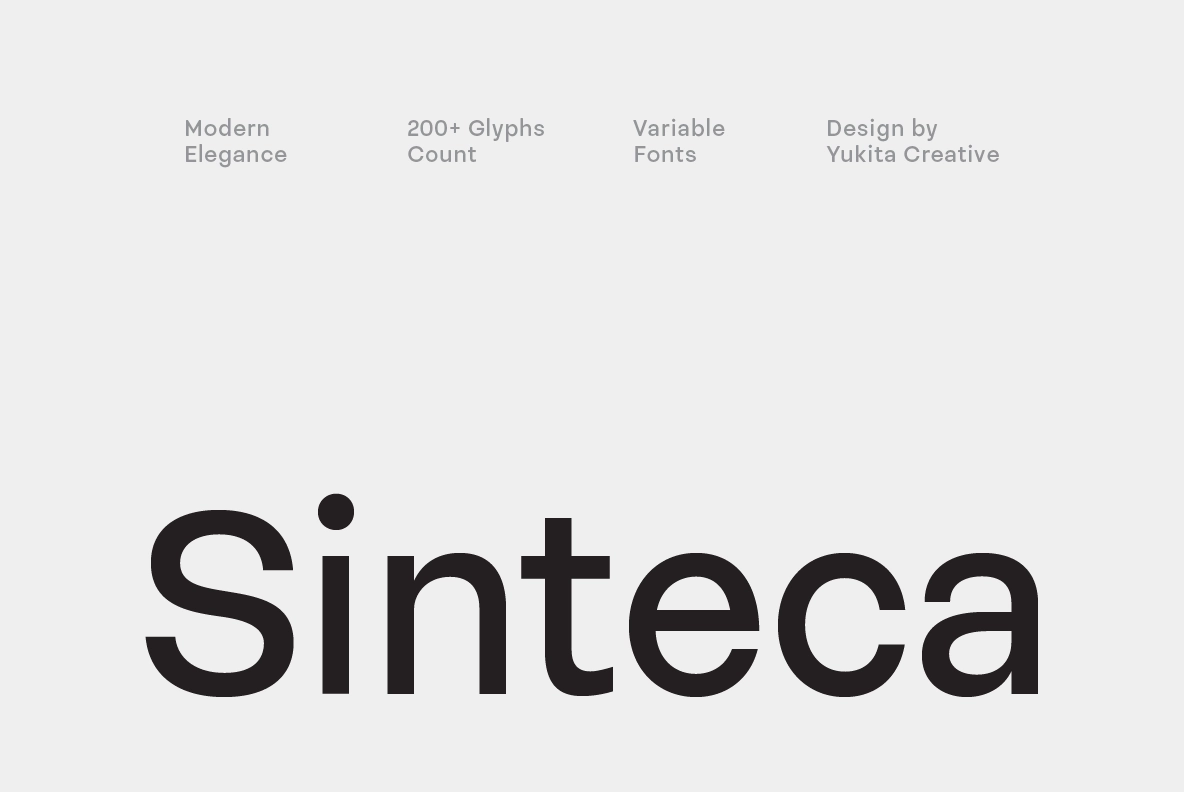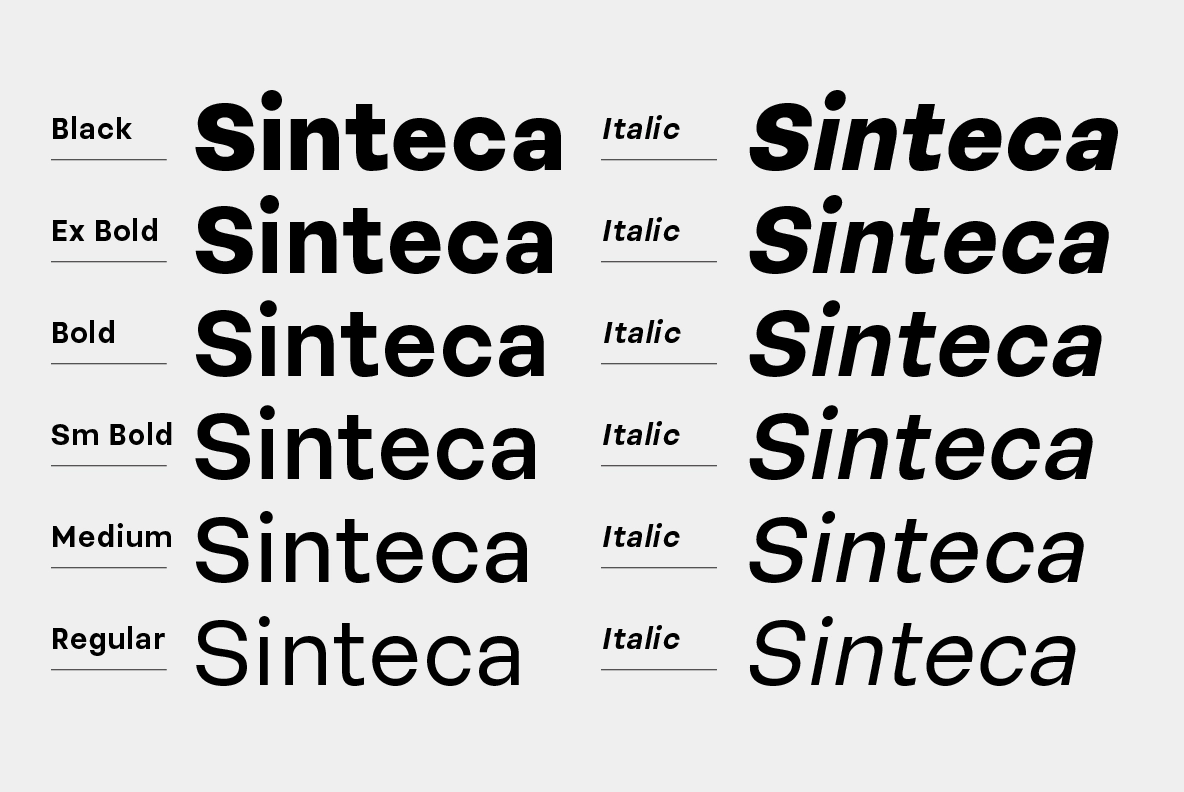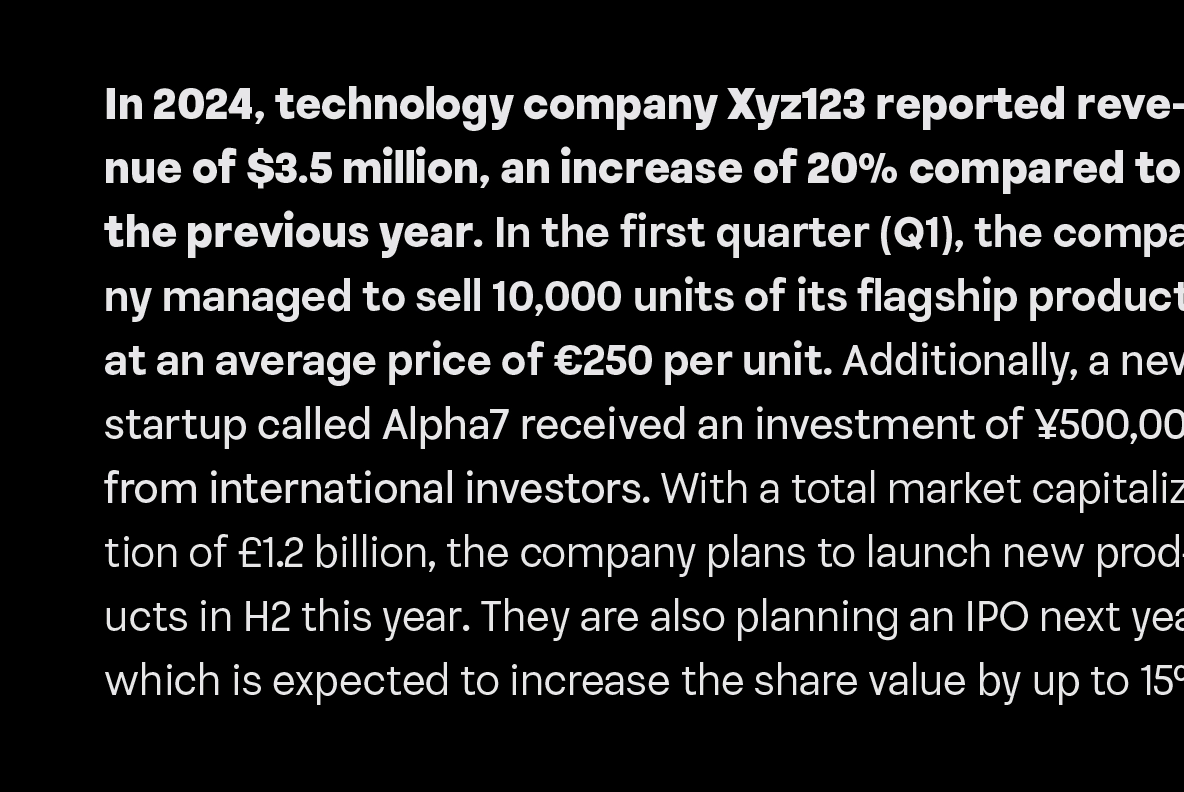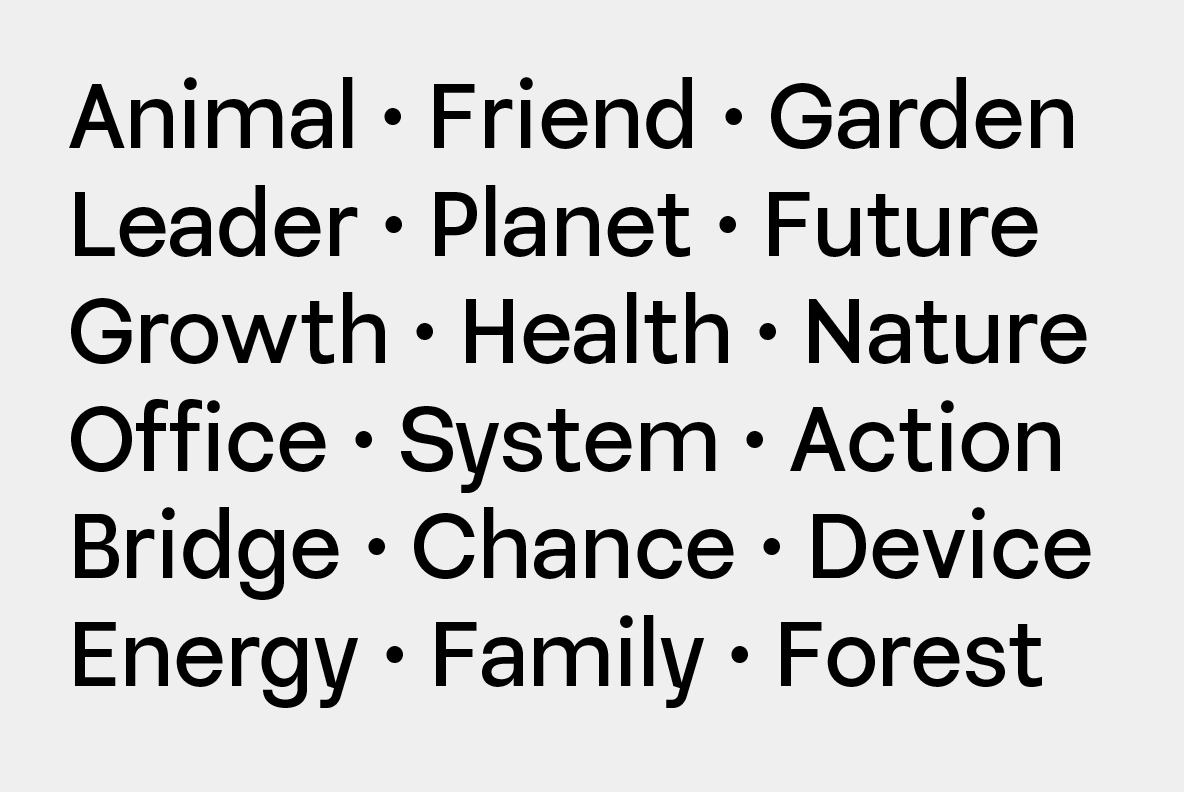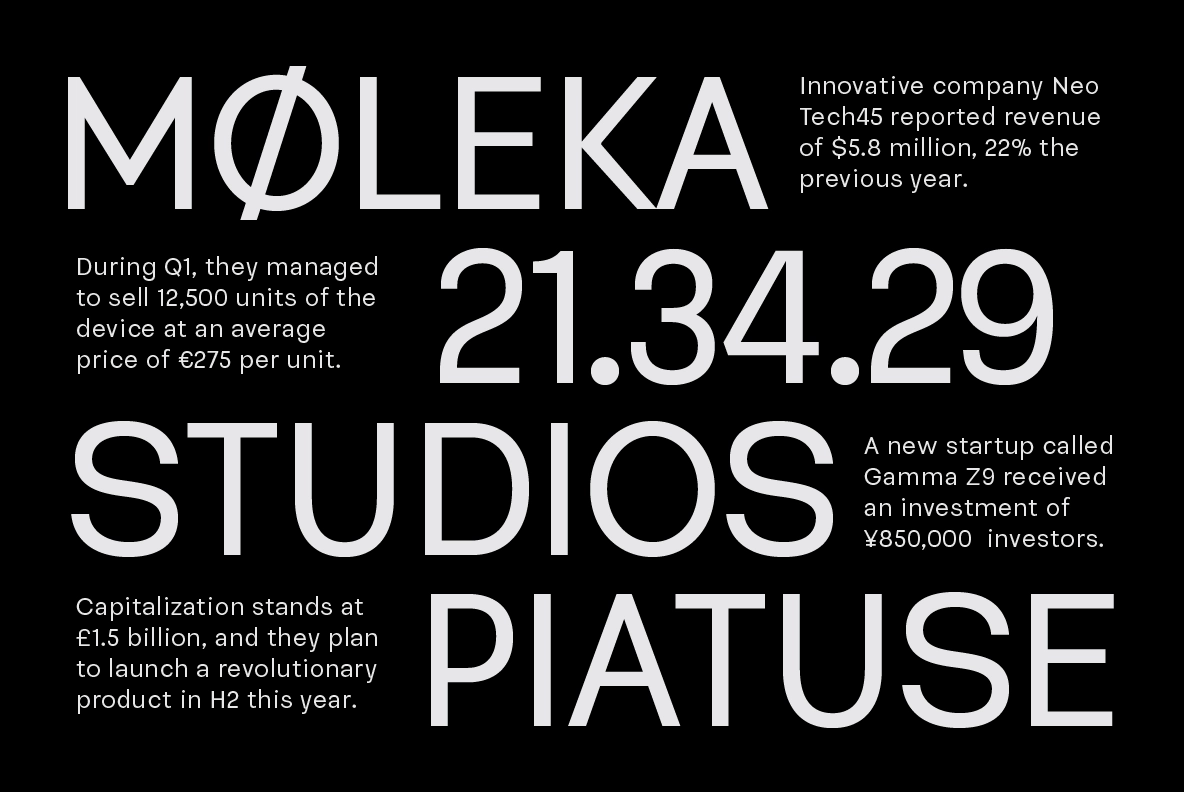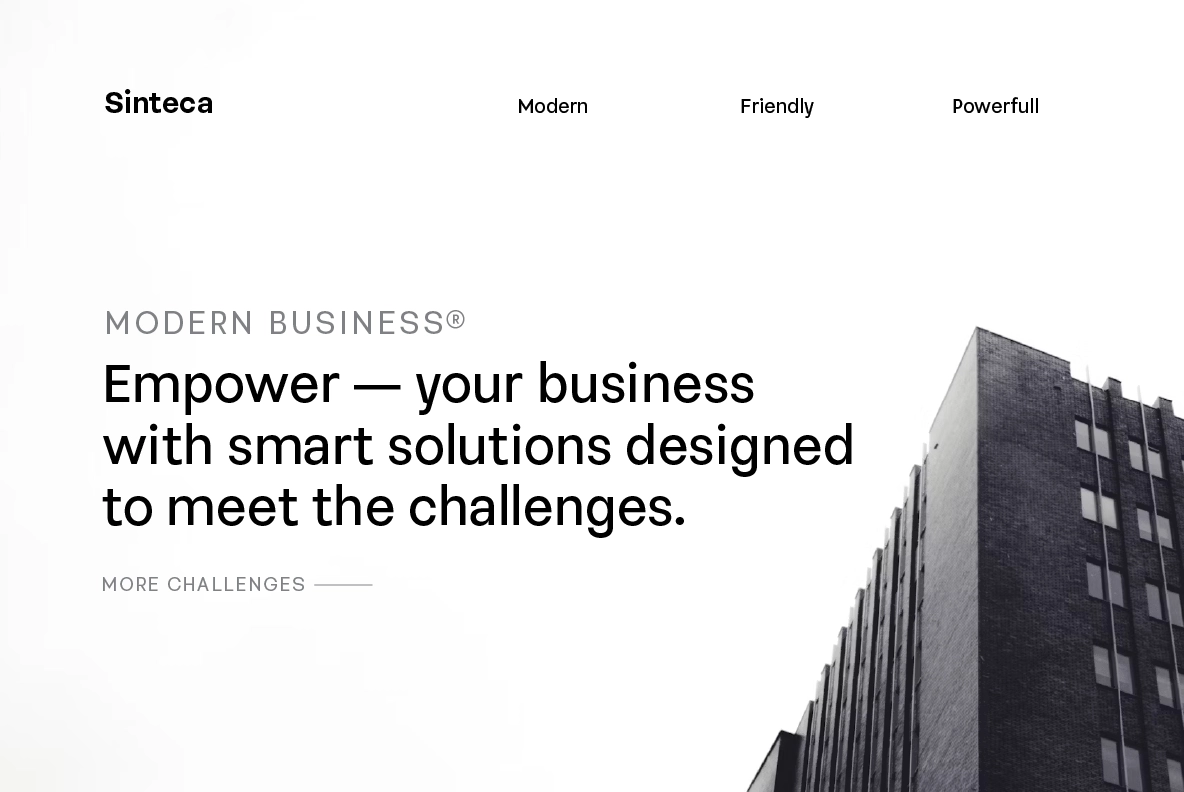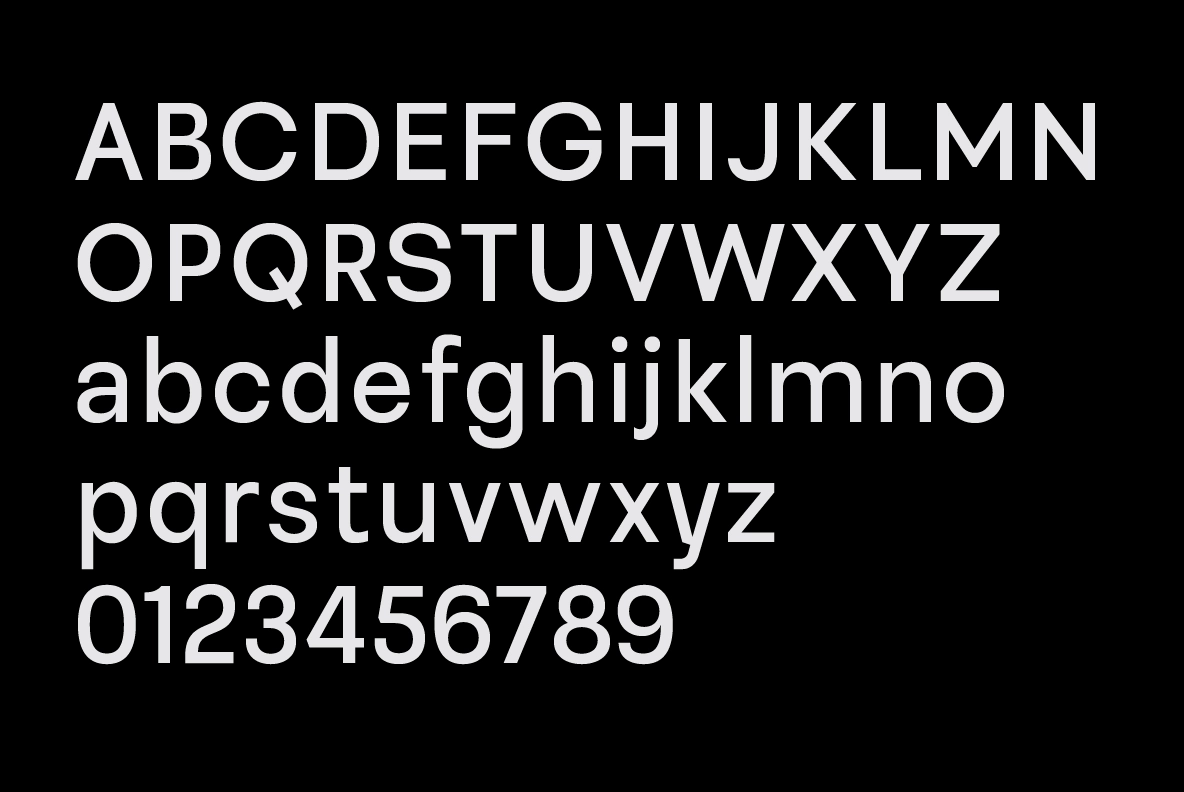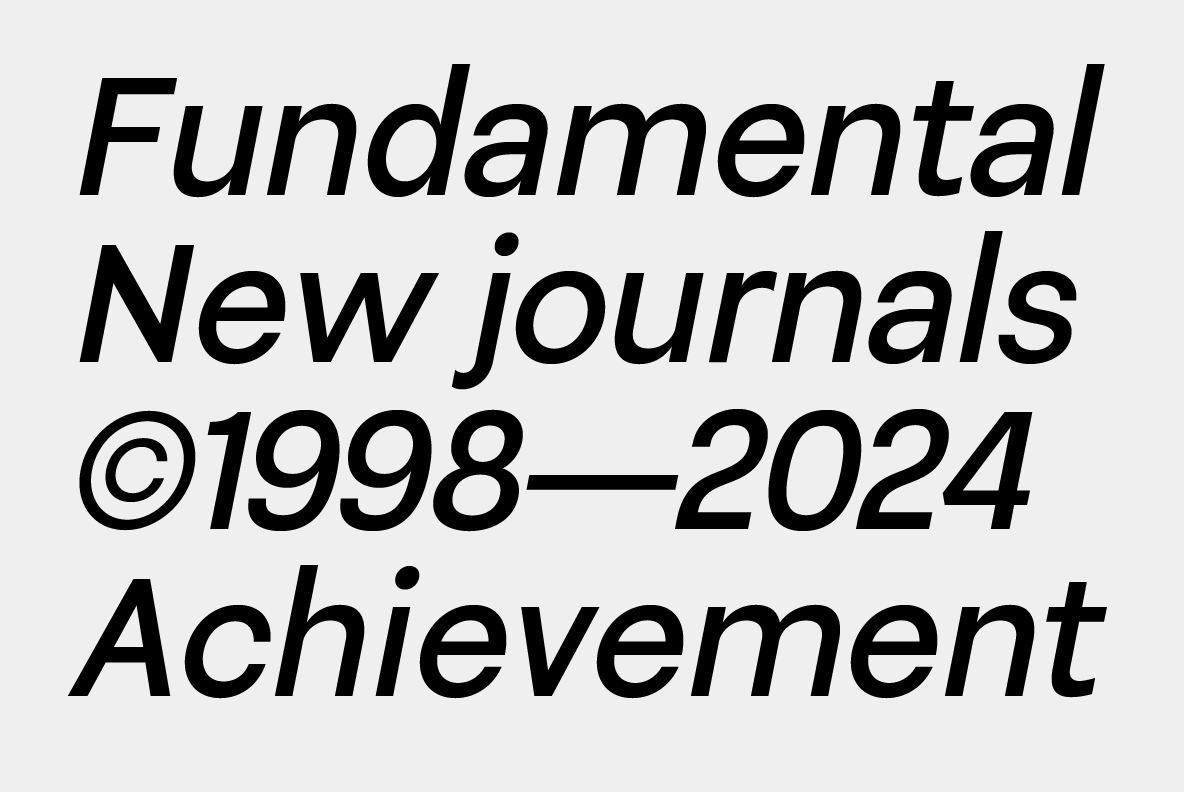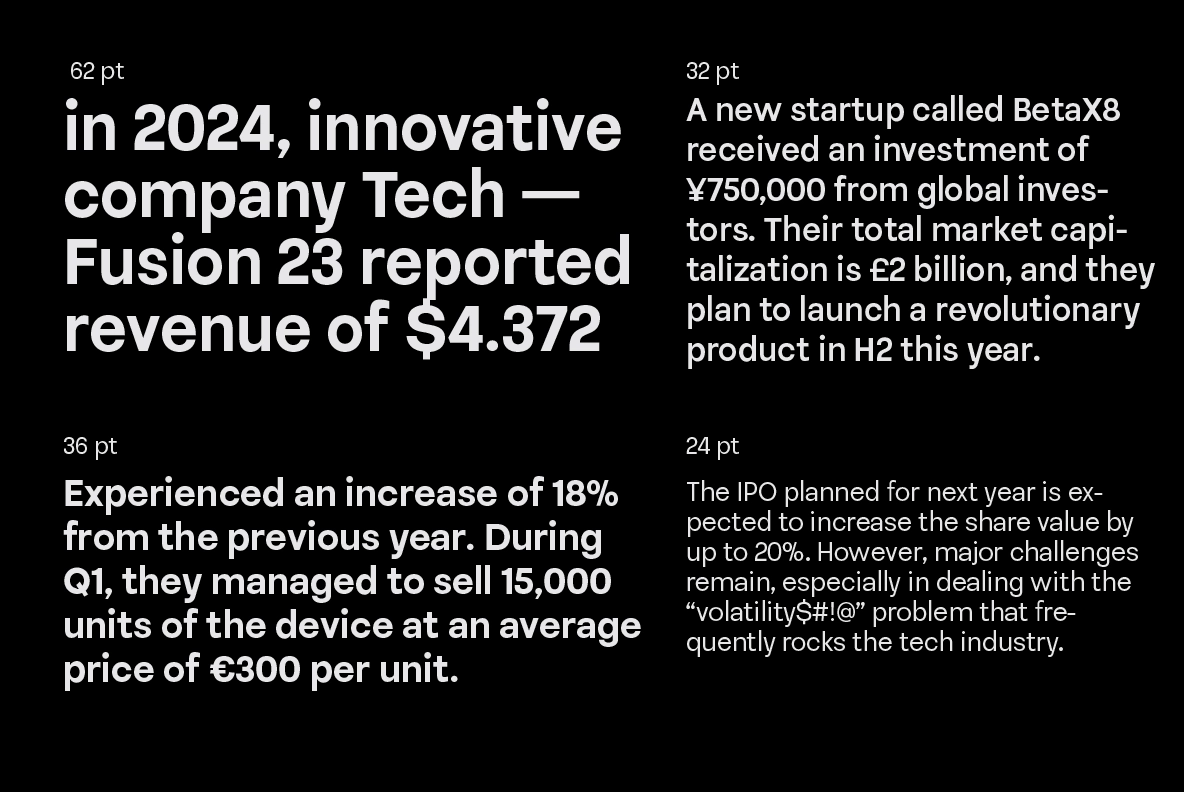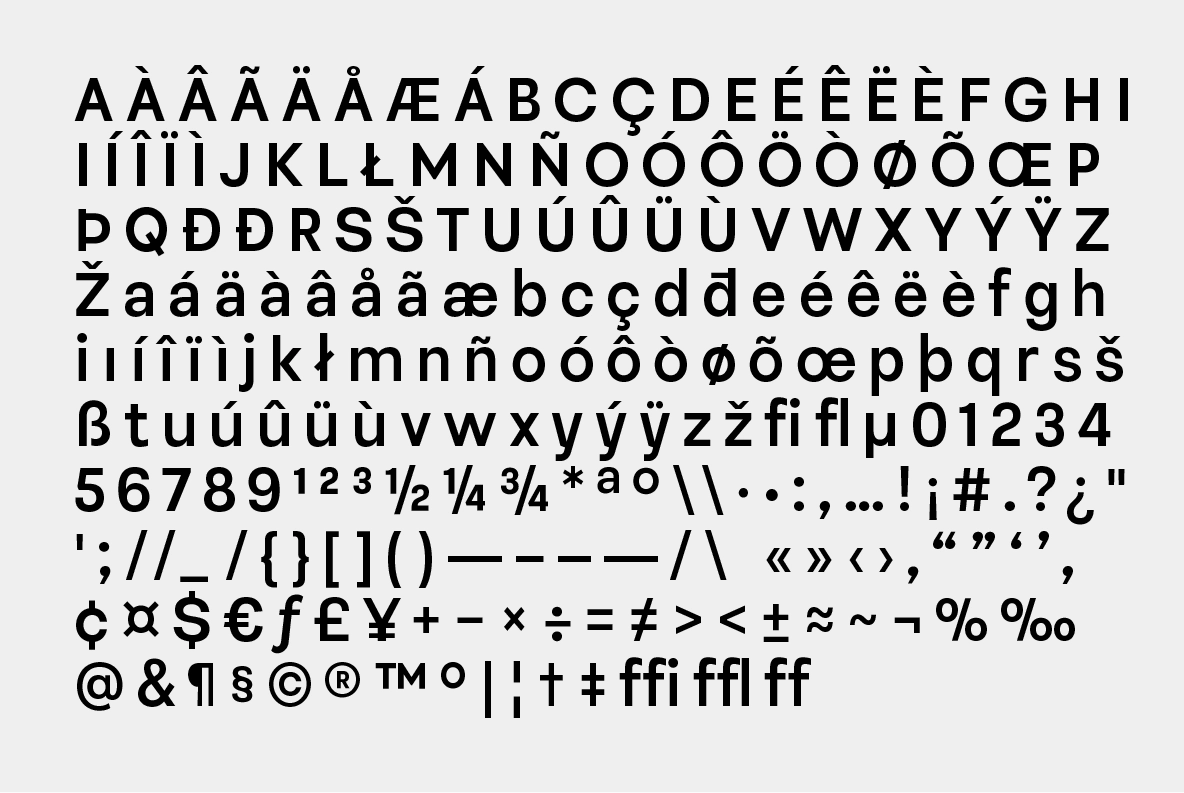
Sinteca - Clean Sans Serif Font
This clean sans serif is crisp, balanced, and highly readable, with rounded details that keep the tone approachable without losing its professional edge. The family ranges from Regular to Black with matching italics, giving designers enough control for quiet text systems, bold headlines, and polished brand work.
Sinteca is a practical choice for corporate identities, editorial layouts, website headers, mobile interfaces, pitch decks, advertising campaigns, packaging, signage, app dashboards, social media graphics, annual reports, and product presentations. It has the calm confidence of a typeface that knows the grid is there for a reason.
• 12 styles: Regular to Black with Italics
• Variable fonts
• 200+ glyphs